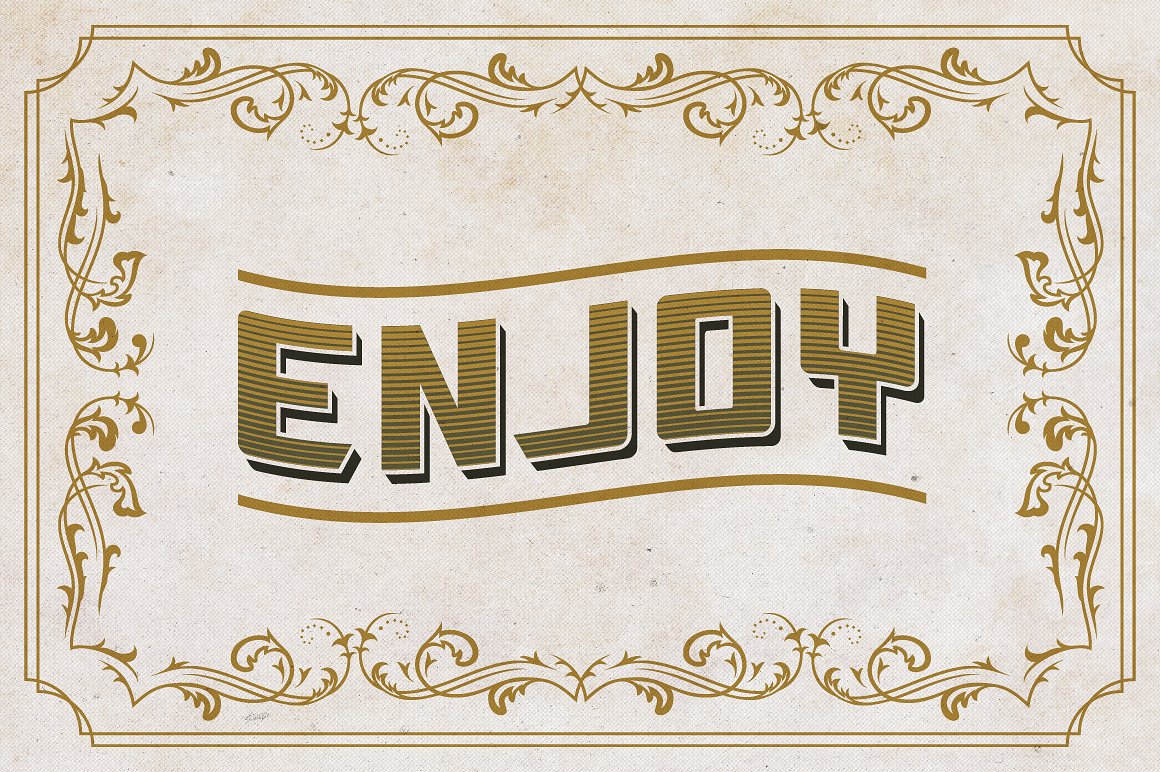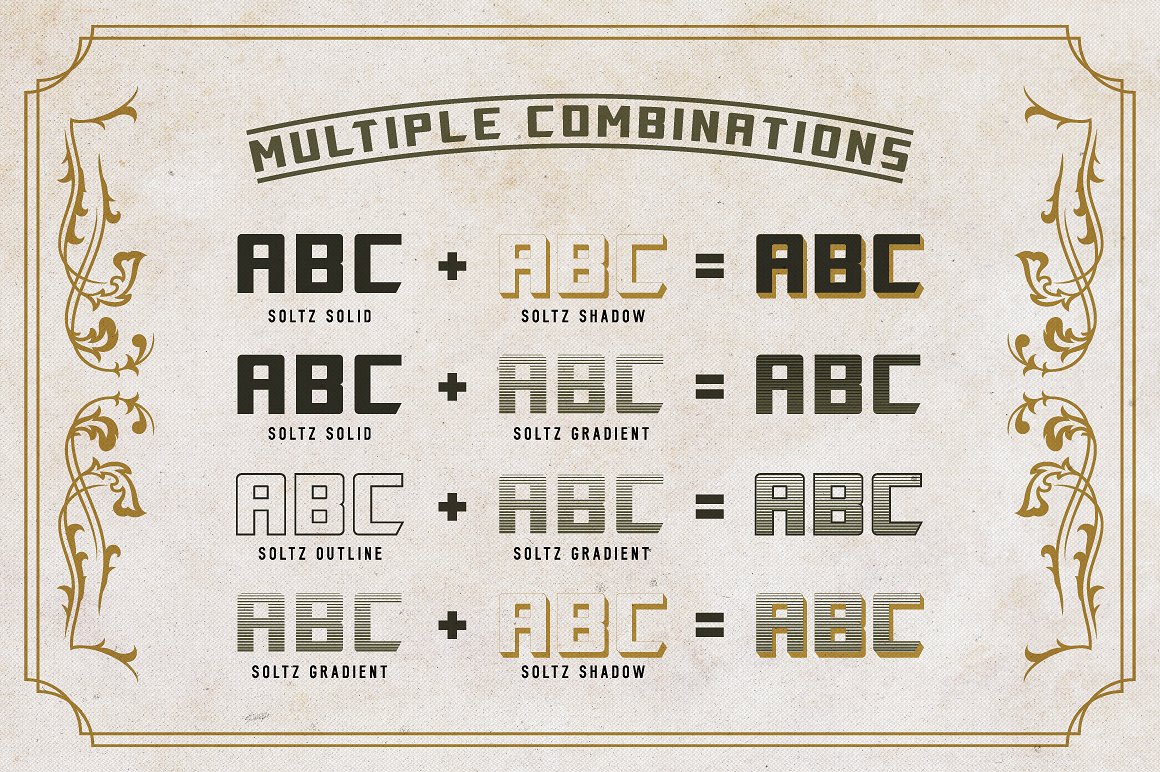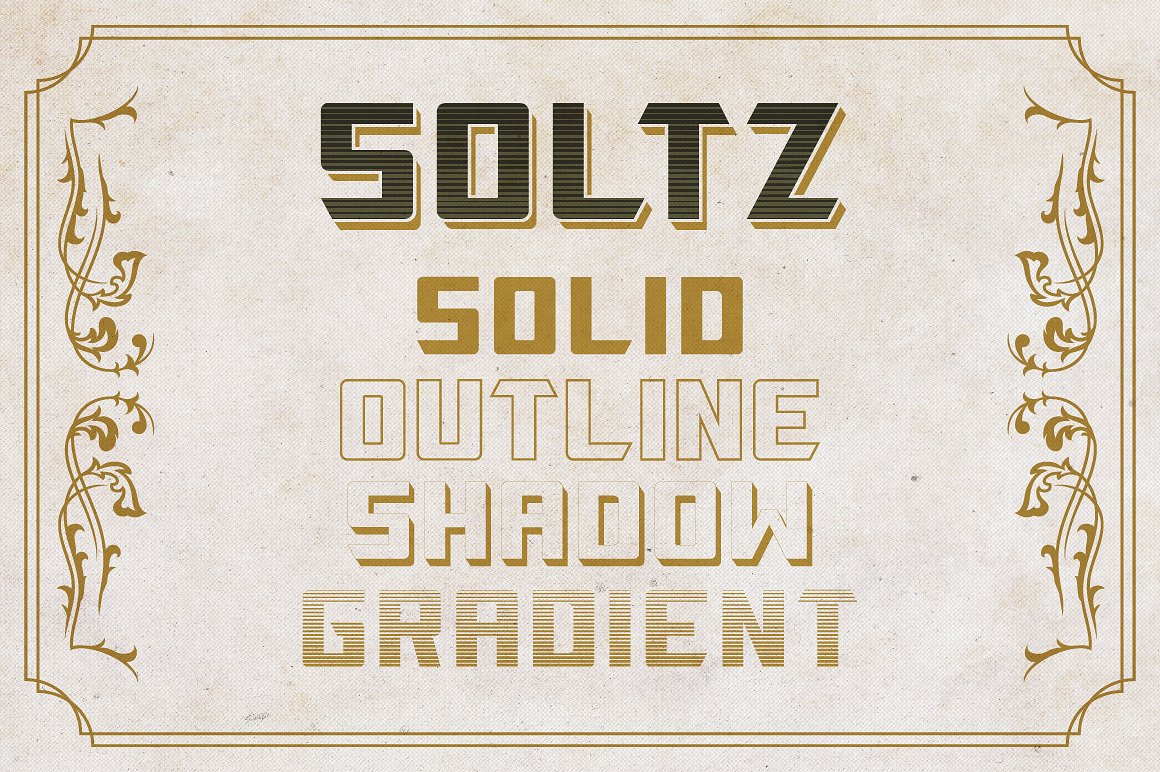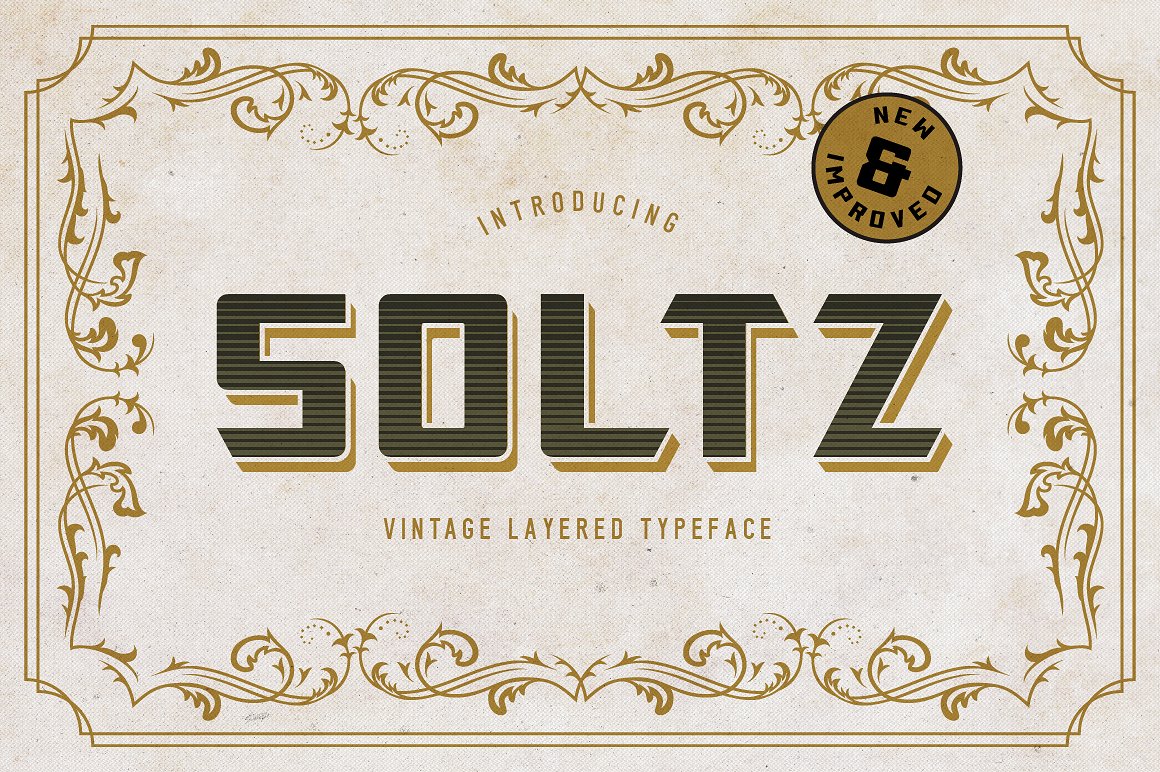
Soltz Typeface
Introducing Soltz Font. It is designed by Von Type Co, this is a premium font, are sold on creativemarket, but it was great, it is free today for download. Soltz Vintage Layered Typeface – a layered typeface inspired by vintage hand painted sign advertisements found in Atlantic City, NJ. Featuring 4 stackable styles that easily combine to make a wide variety of typography effects. From Logos, T-shirts, Retro Posters, Prints, Cards, or Package designing, Soltz is the perfect fit for a touch of vintage style to any project.